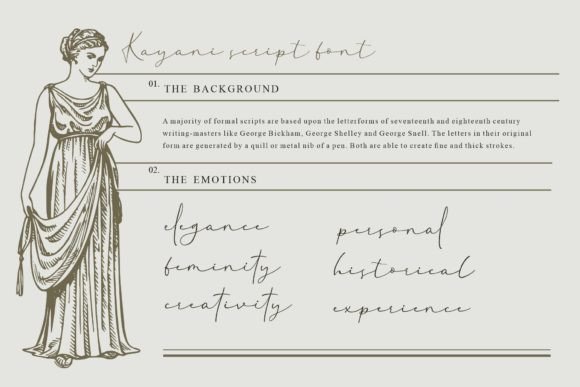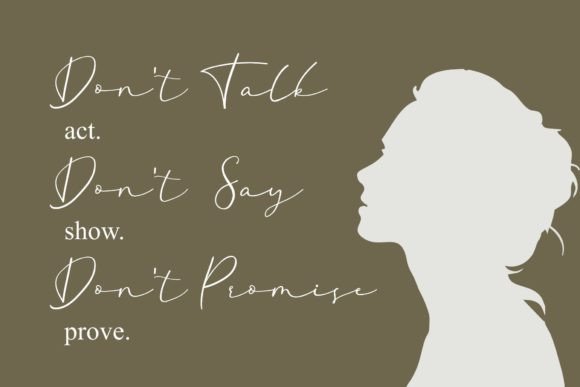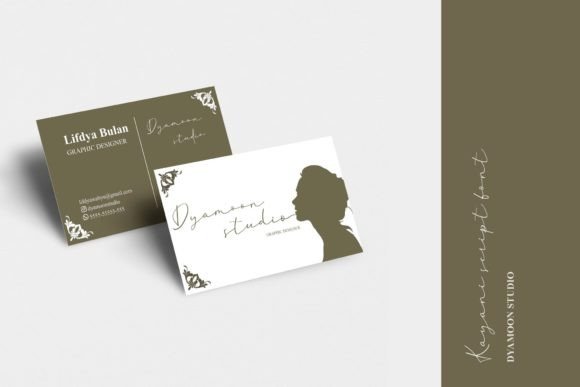
About Kayani Script Font
Kayani is a thin-lettered handwritten font masterfully crafted to become a true favorite. Contemporary and fresh, it is perfect for any design you wish to create. Add it to your creative projects and make them outstanding! This font is PUA encoded which means you can access all the glyphs and ligatures with ease!